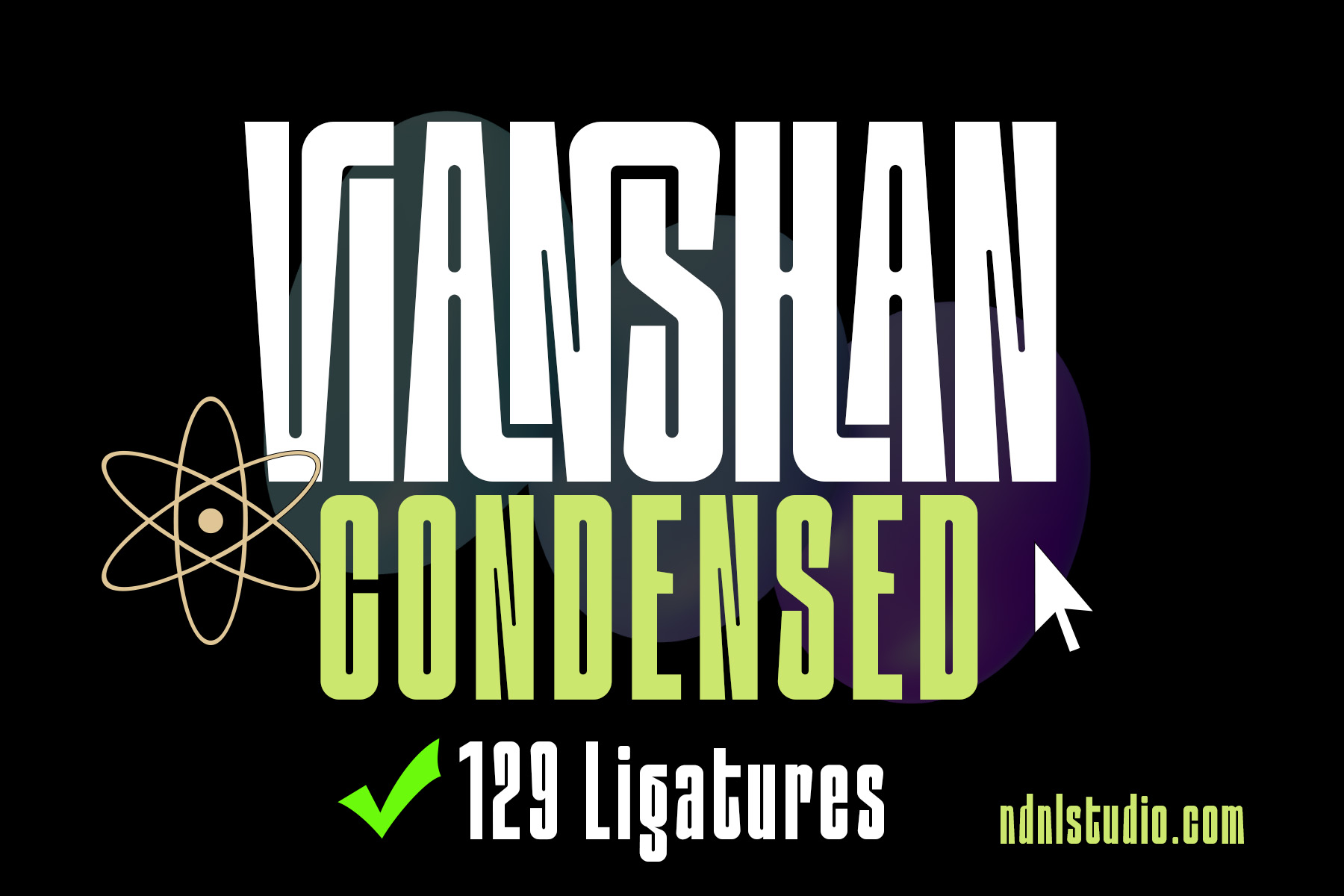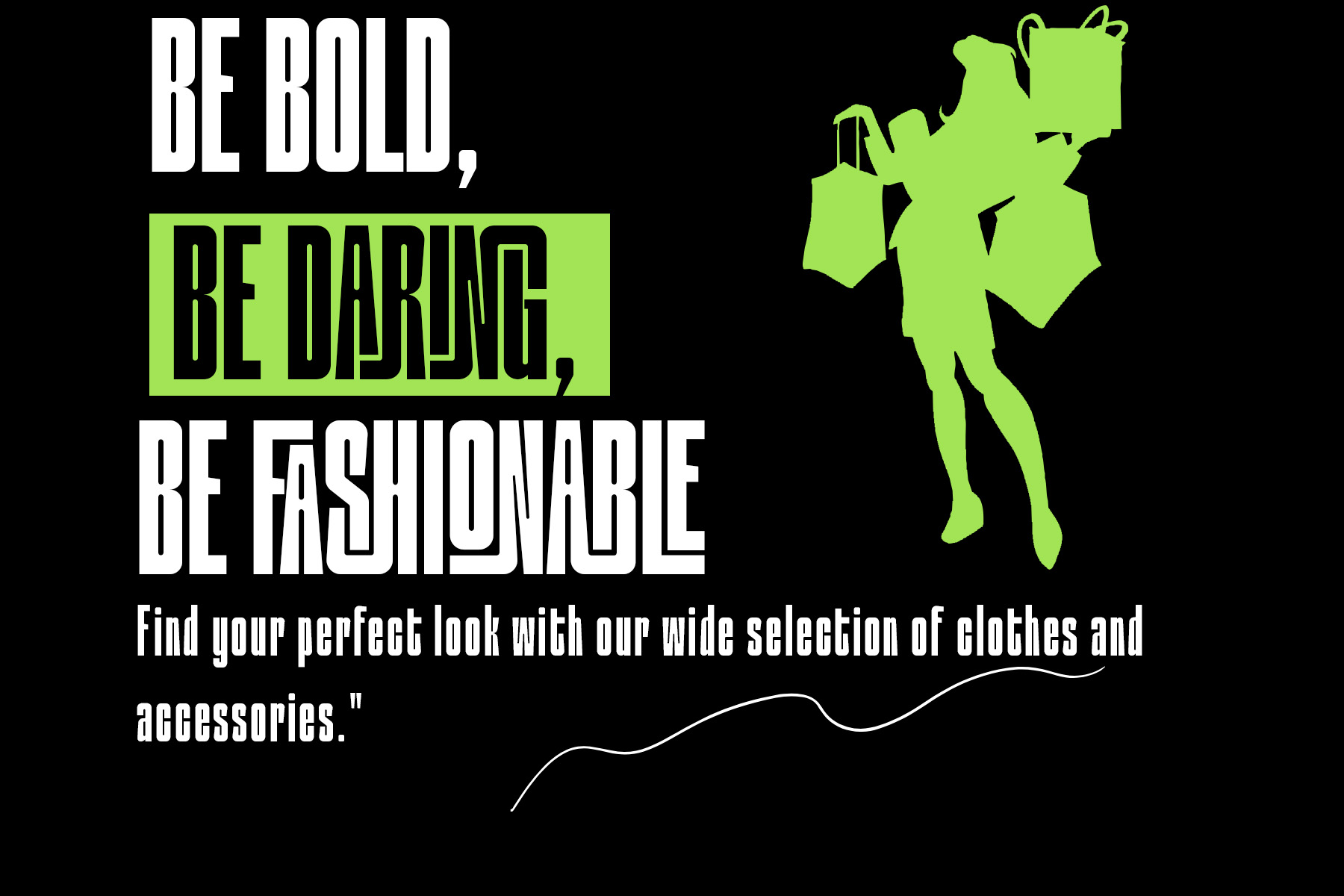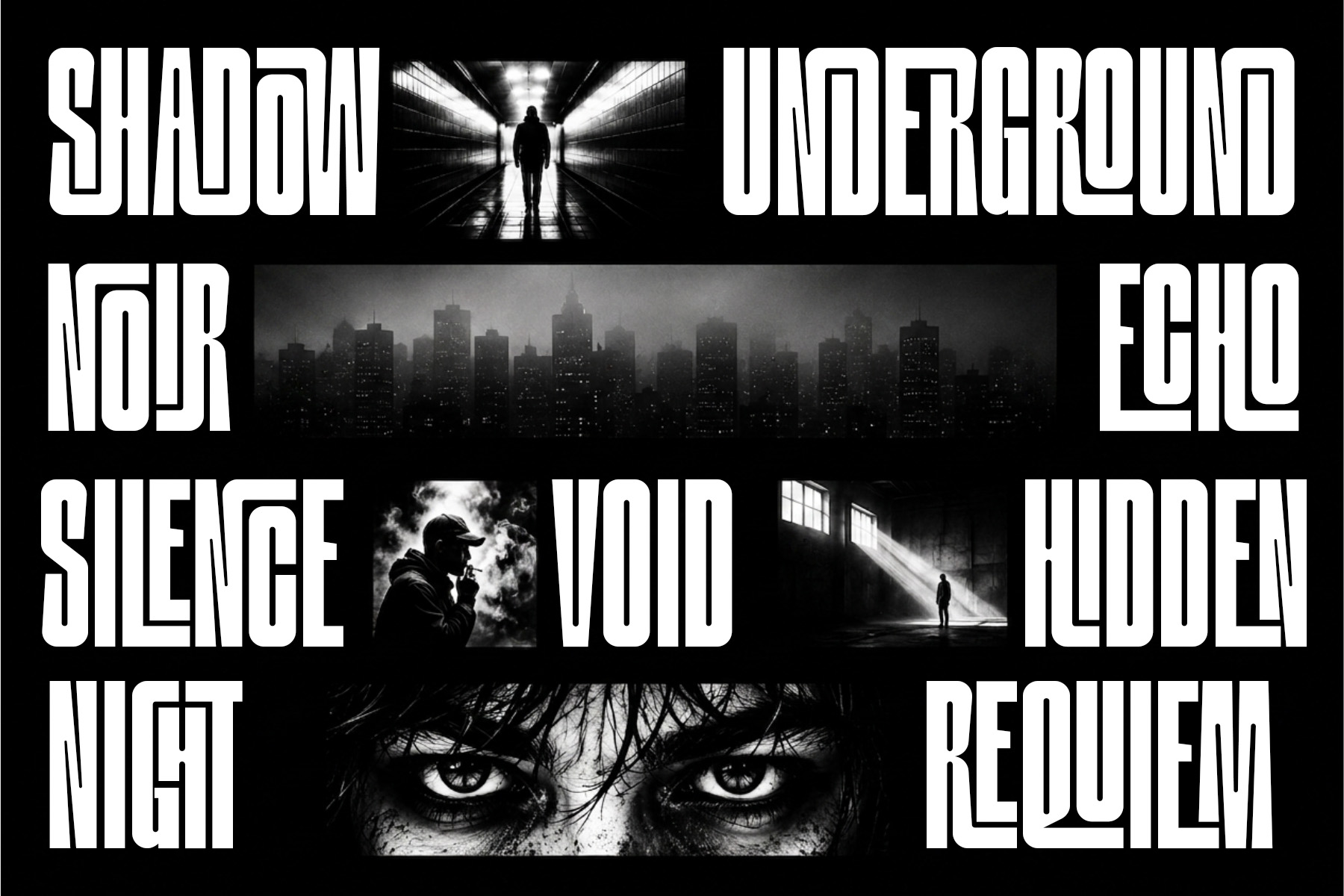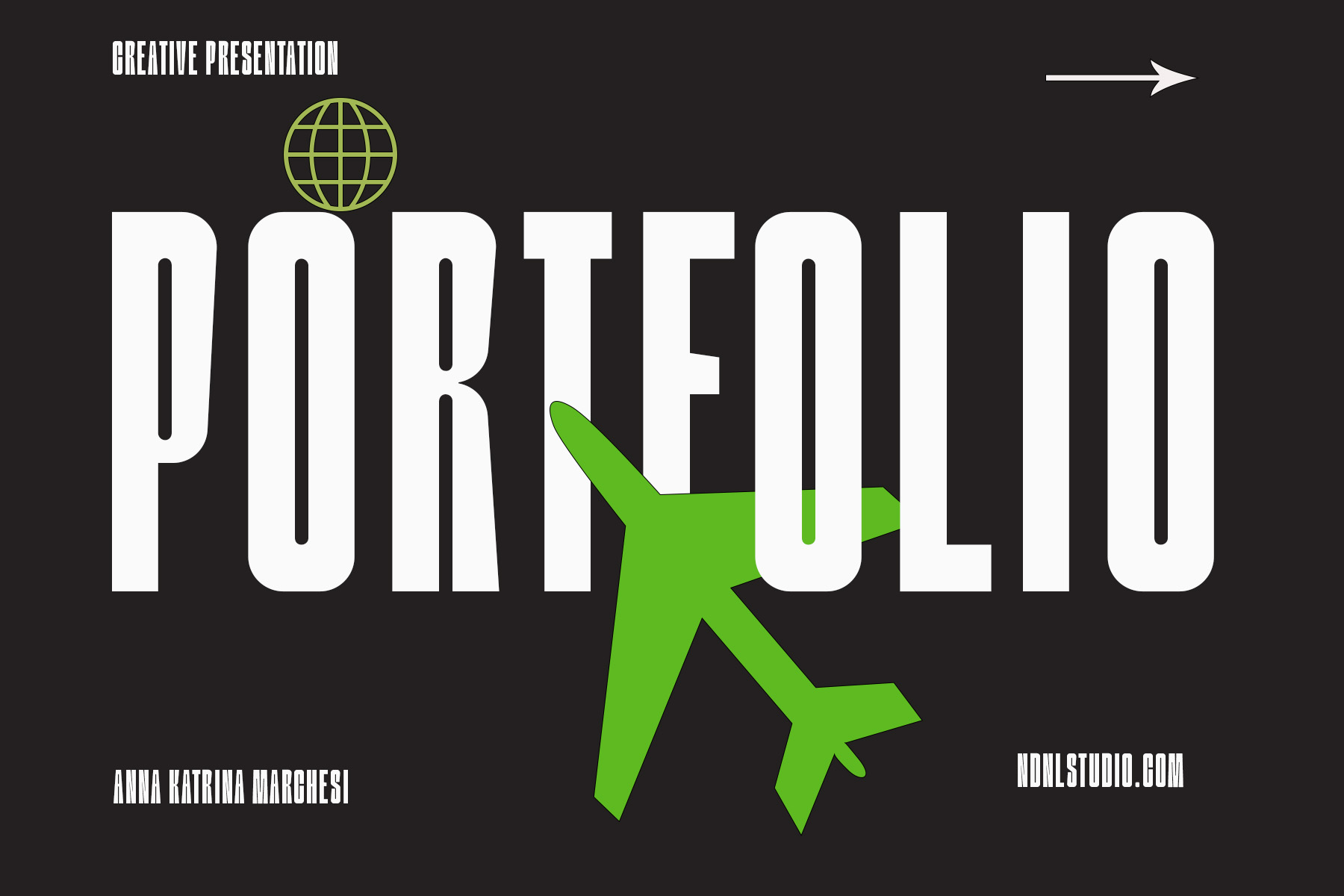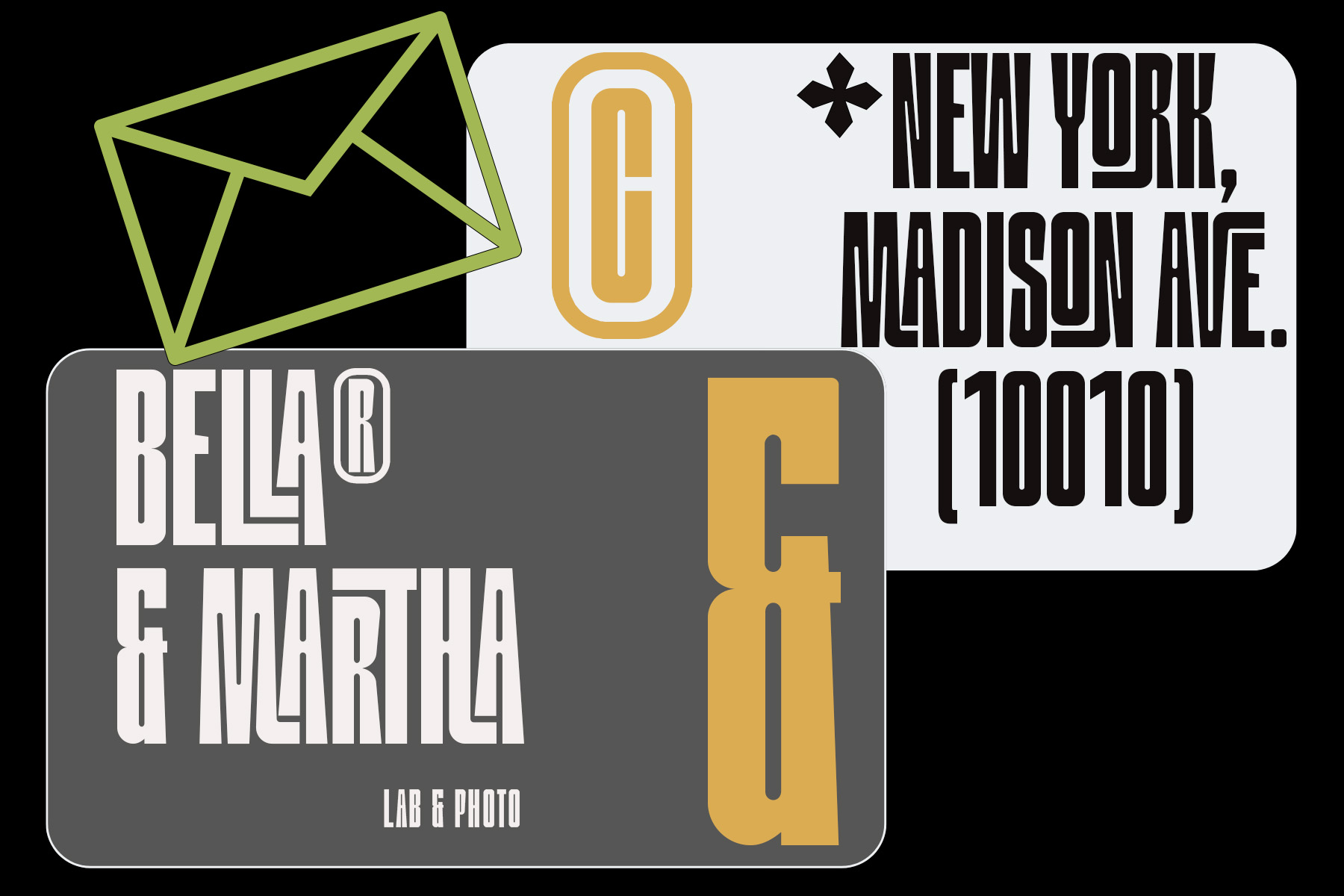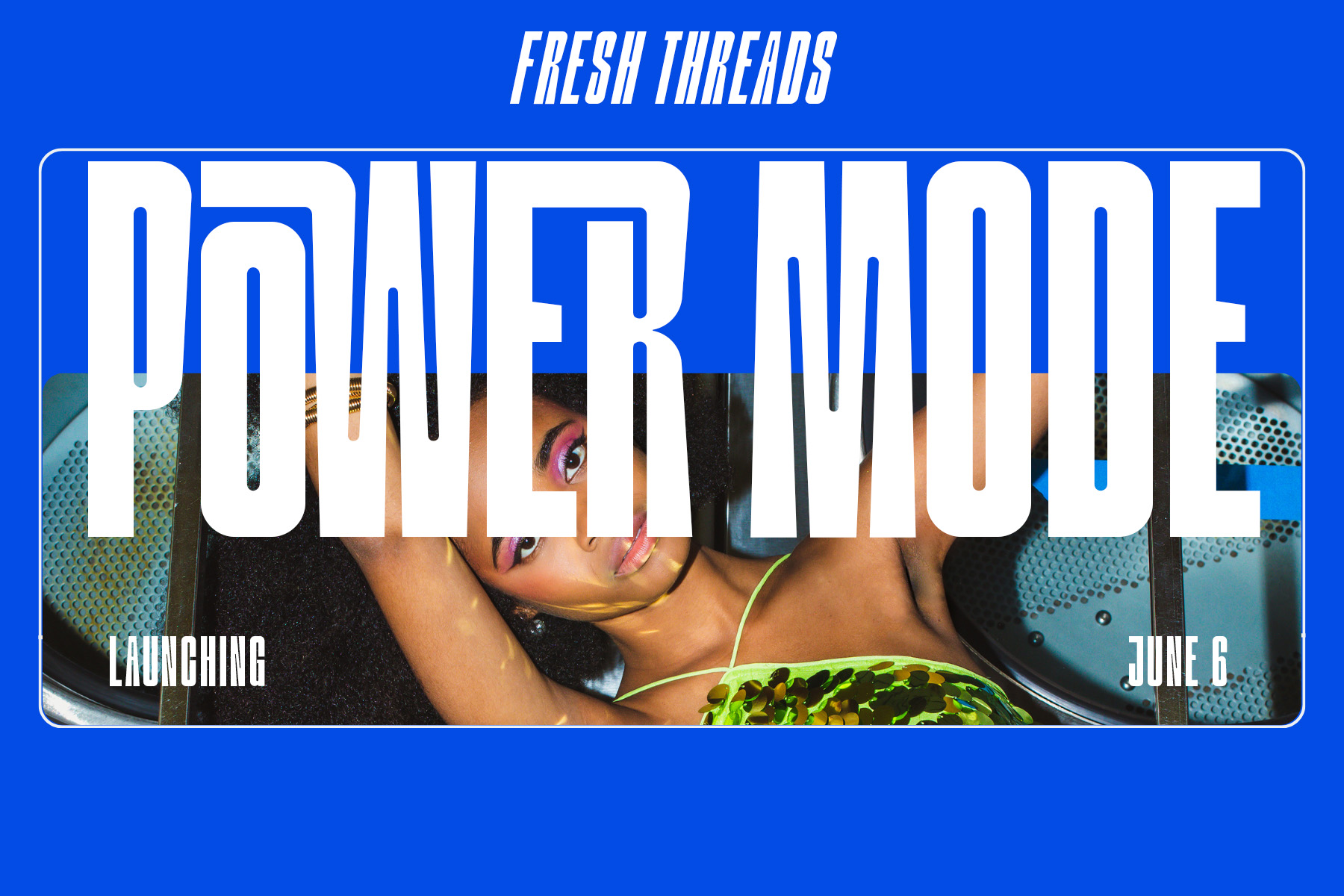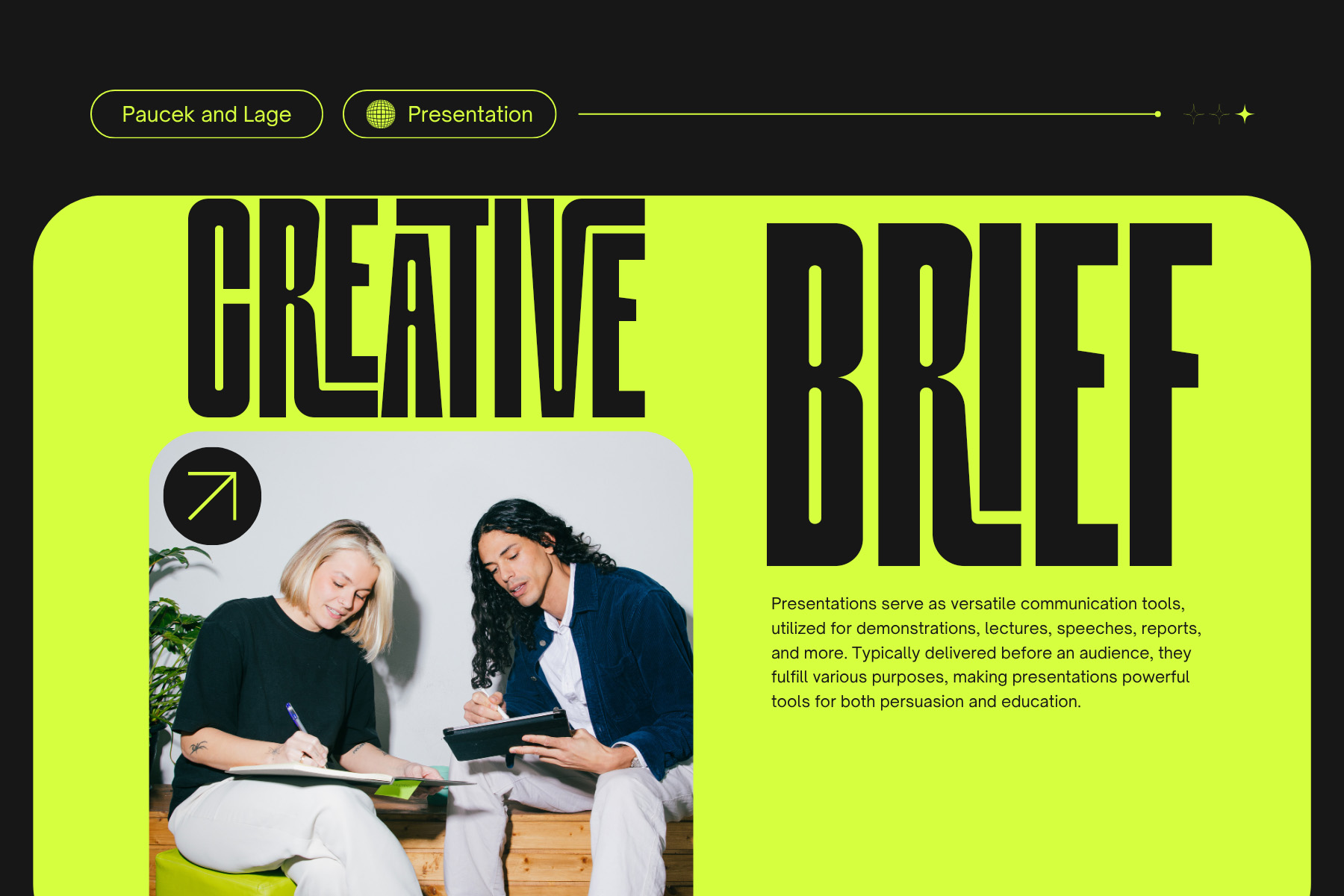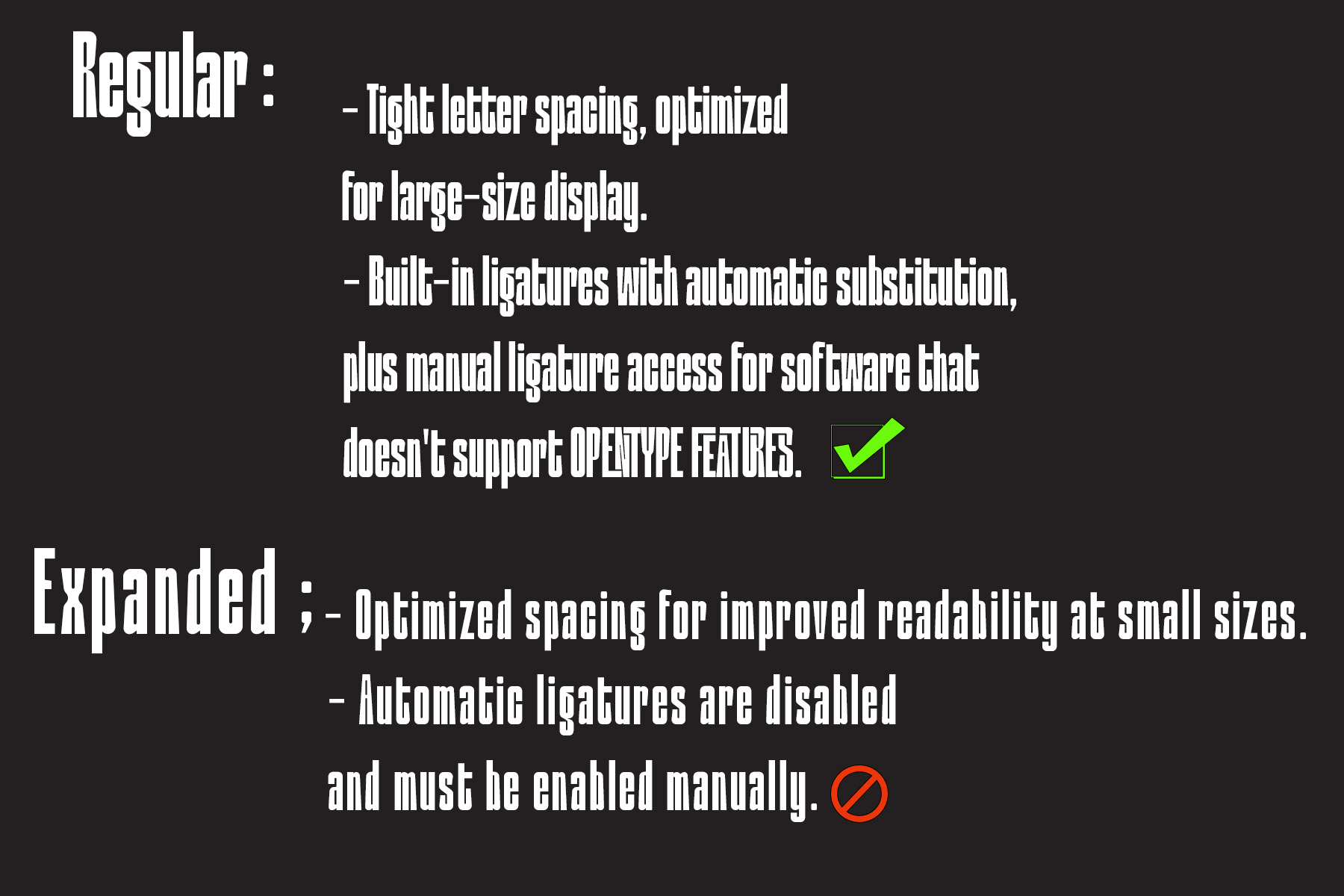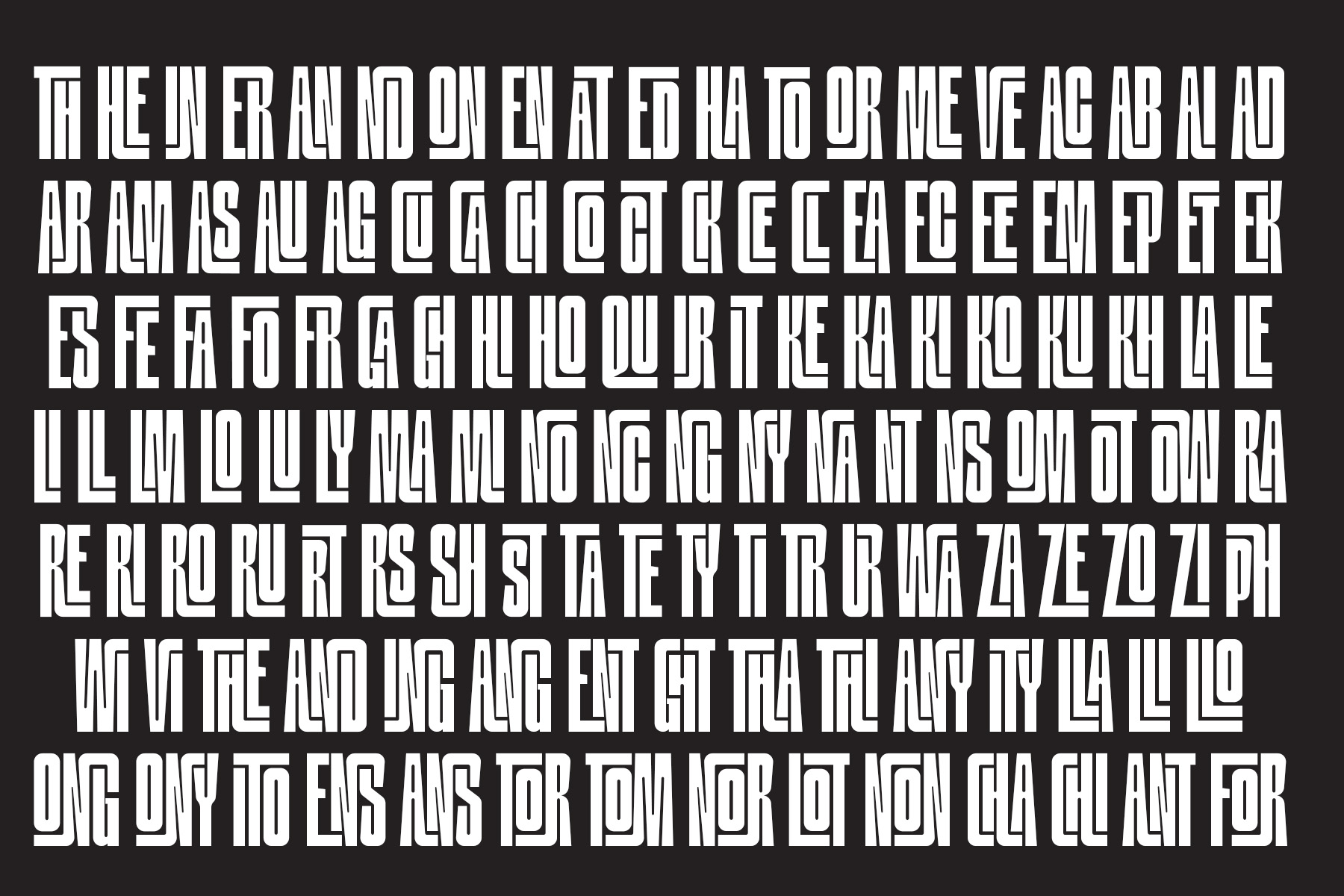
Vianshan – Condensed Font
Introducing Vianshan!
Vianshan is a bold, modern condensed display typeface designed to make a powerful visual statement. Its tall, narrow letterforms and clean geometric structure create an eye-catching presence, making it perfect for impactful headlines and contemporary branding.
Featuring 129 built-in ligatures, Vianshan delivers smoother letter combinations and a more refined typographic look while maintaining excellent readability. The font includes uppercase, lowercase, numerals, punctuation, multilingual support, and a rich collection of stylistic ligatures for enhanced creativity.